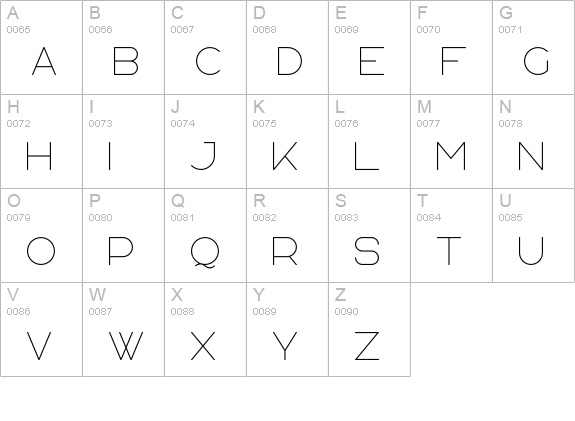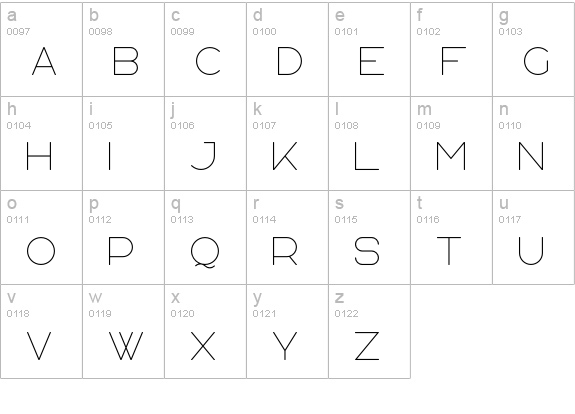
Agelast Font Details
Agelast is a free for personal use font in the General > Bold category, designed by vpcreativeshop. It has been downloaded 226 times and is available for Windows, Mac and Linux.
Agelast font is a timeless and elegant typeface that exudes sophistication and charm. With its clean lines and classic appeal, this font is perfect for a wide range of design projects including branding, editorial design, and more. The sleek and modern look of Agelast font makes it a versatile choice for both print and digital applications.
What sets Agelast font apart is its seamless blend of traditional and contemporary elements, creating a truly unique and eye-catching aesthetic. The font's versatility allows it to be used in a variety of design contexts, giving your projects a touch of elegance and professionalism.